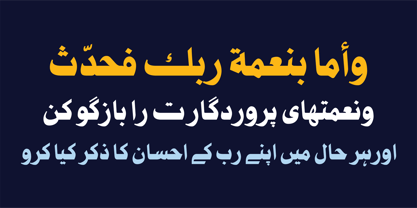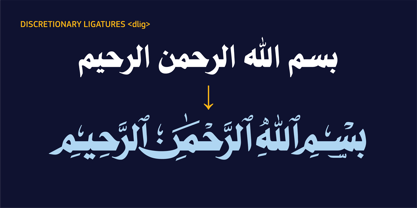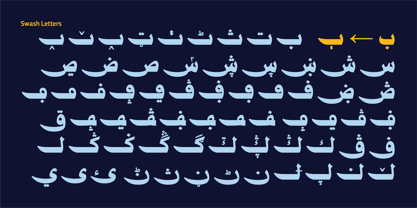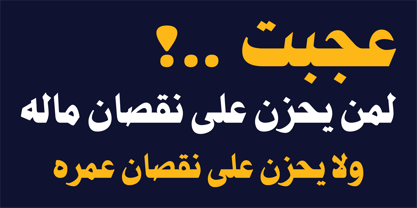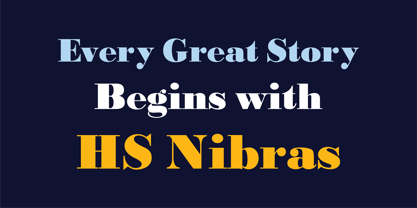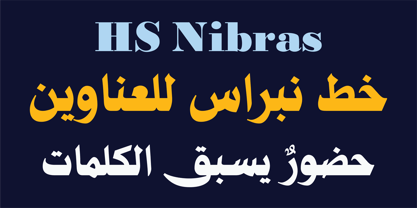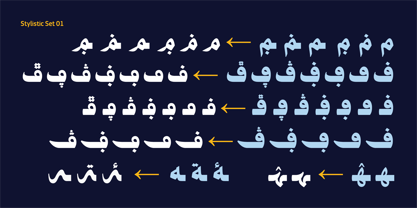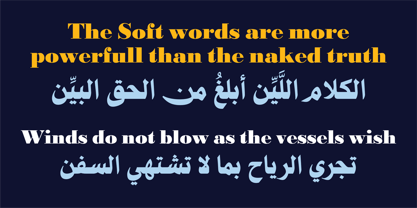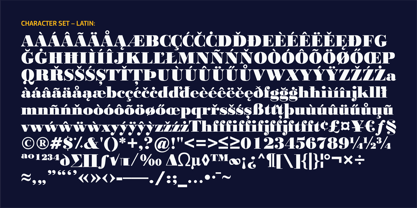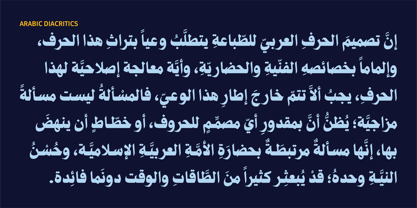
HS Nibras
La famille de polices HS Nibras a été conçue par Hasan Abu Afash et publiée par Hiba Studio. HS Nibras contient 1 styles. En savoir plus sur cette famille
HS Nibras - Presence Before Words.
HS Nibras is a bold Arabic display typeface inspired by the timeless structure of Naskh calligraphy and crafted for headlines that demand attention. Designed to create a confident visual presence, it combines expressive Arabic with a harmonized extended Latin companion.
Purpose-built for editorial design, branding, advertising, publishing, and packaging, HS Nibras delivers clarity, strength, and character across both print and digital media.
HS Nibras includes a rich collection of typographic features, including Stylistic Set 1, swash letters, discretionary ligatures, and carefully designed alternate glyphs. It also provides full Arabic Unicode support, extended Latin coverage, and Arabic, Persian, and Urdu numeral sets, making it suitable for multilingual typography across a wide range of Arabic-script and Western European languages.
Whether used for book covers, magazine titles, visual identities, posters, or digital campaigns, HS Nibras is designed to make every headline felt before it is read.